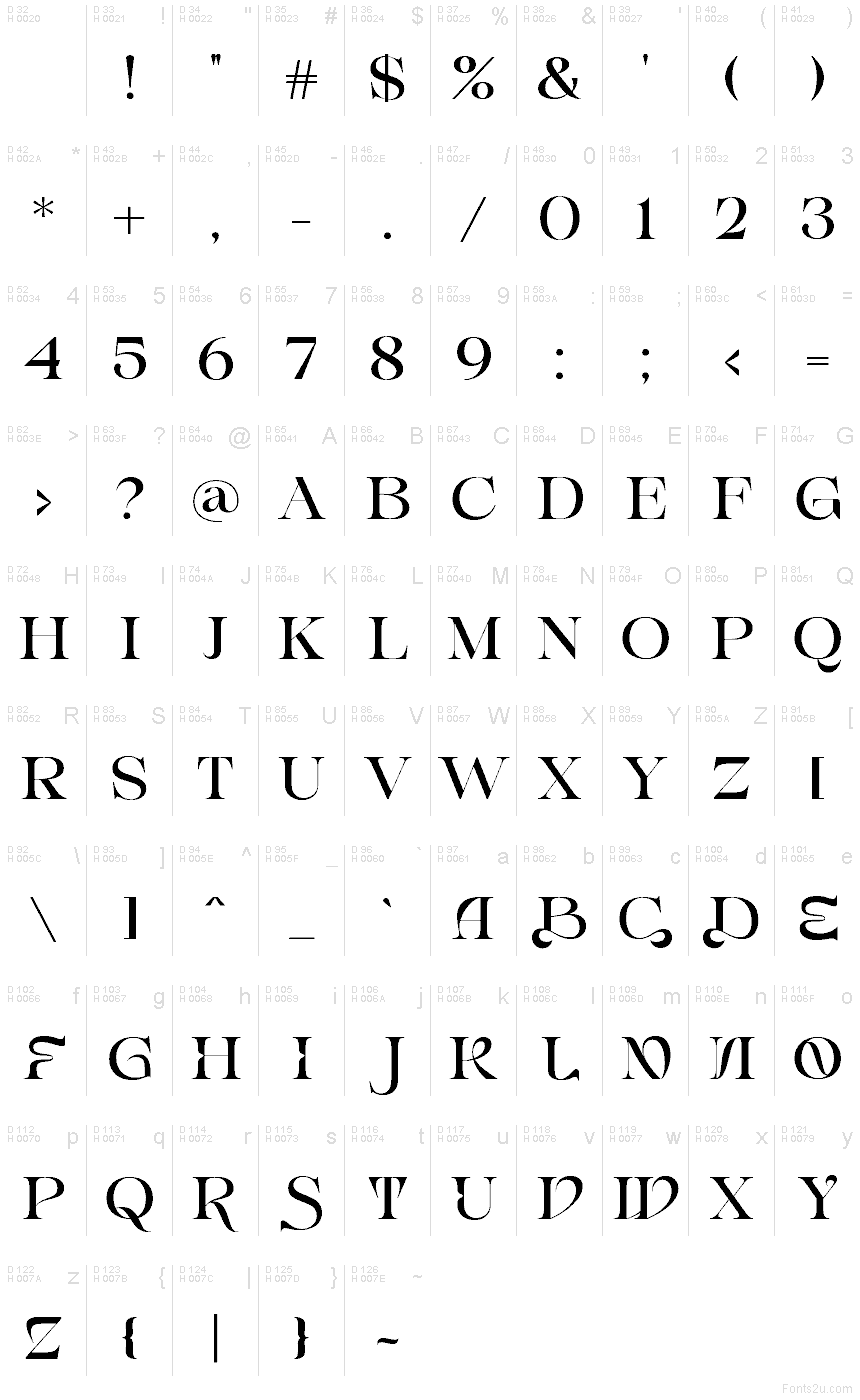
Erakov Display font by Namara Creative is a free retro modern serif display font that solves a familiar dilemma: you want nostalgia without the dust. Built within the Erakov family, its high-contrast strokes, sculpted curves, and crisp air pockets create a luxe rhythm-think inky cutlines with contemporary restraint. The result reads glamorous at size while staying uncluttered, a rare balance that makes headlines feel both editorial and fresh.
Using Erakov Display, wordmarks gain drama without shouting, and short phrases carry a stylish snap. It shines on beauty packaging, magazine covers, fashion posters, album art, event invitations, and social headers. This free font pairs beautifully with a quiet grotesque or geometric sans for body copy-let Erakov sing large, keep the companion small and steady.
Erakov Display